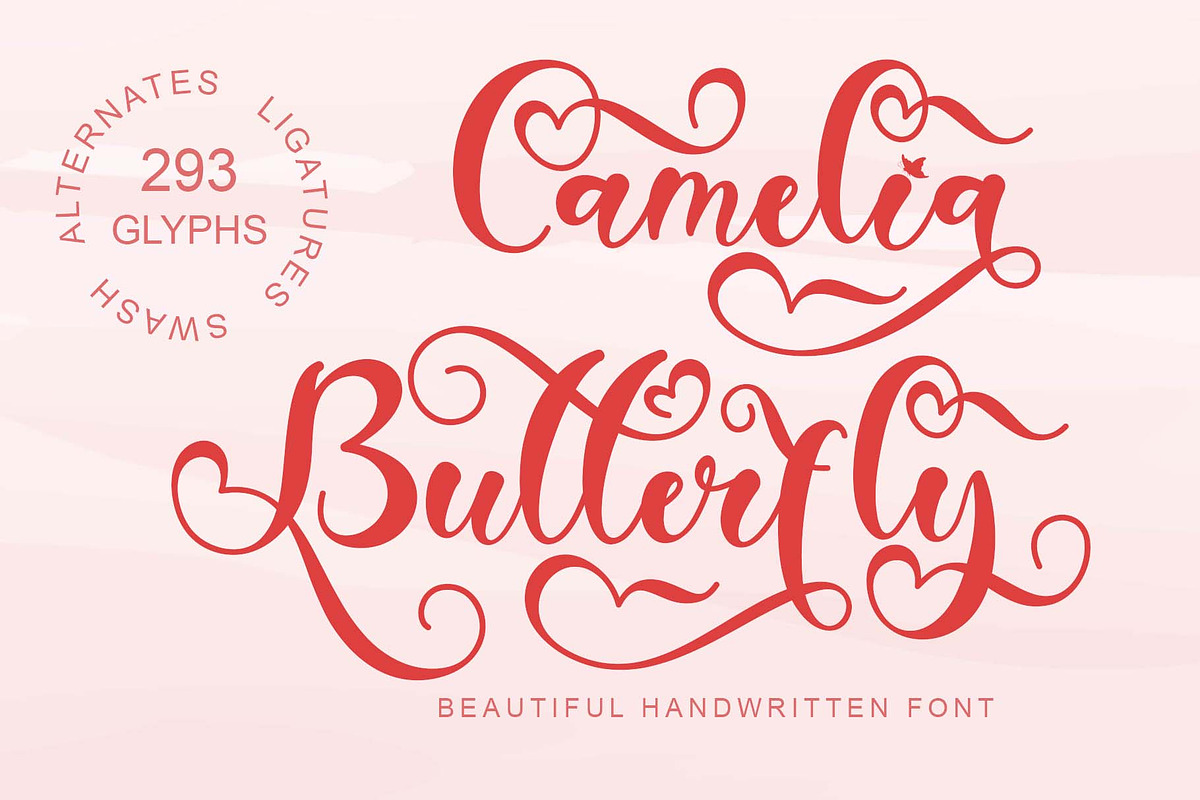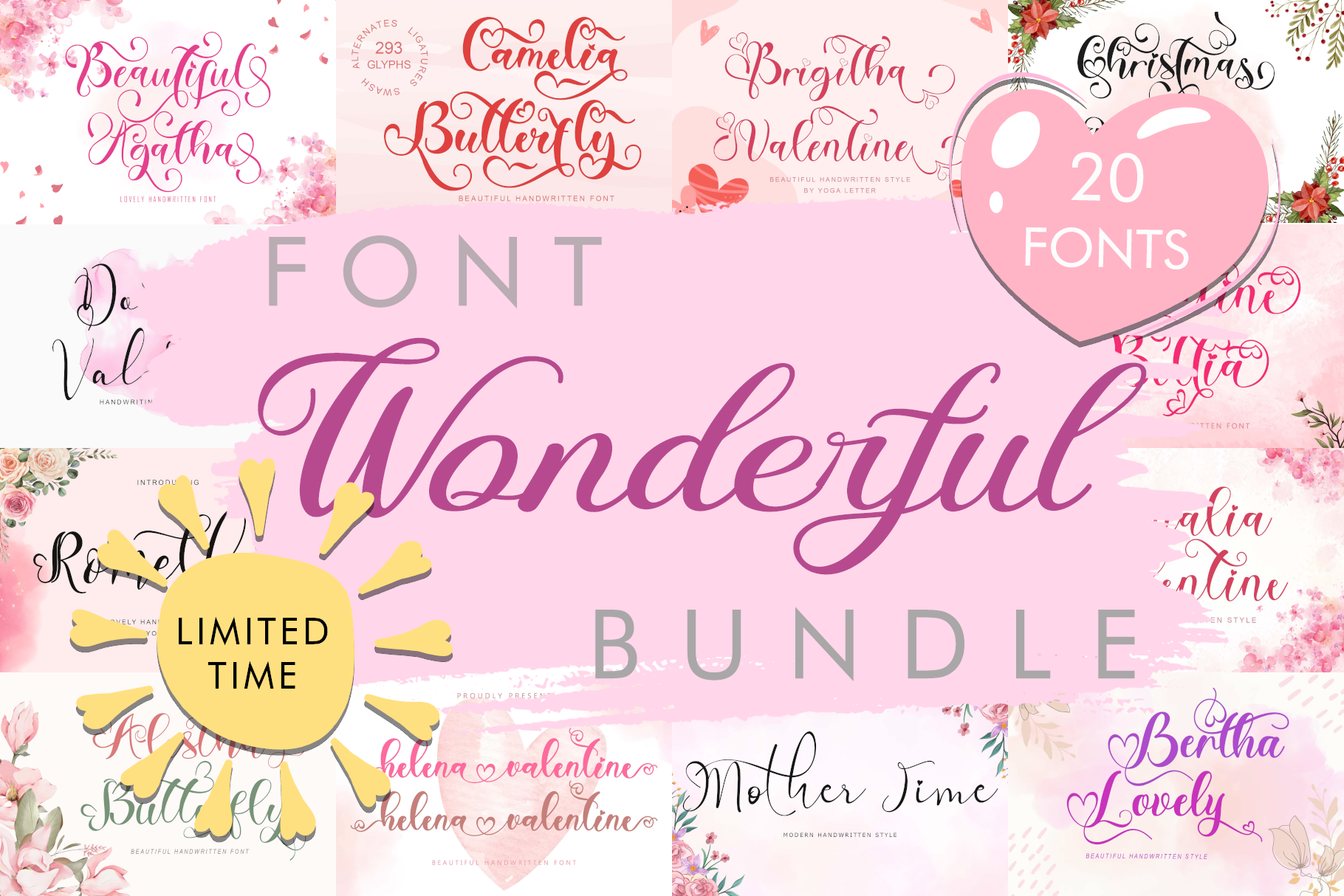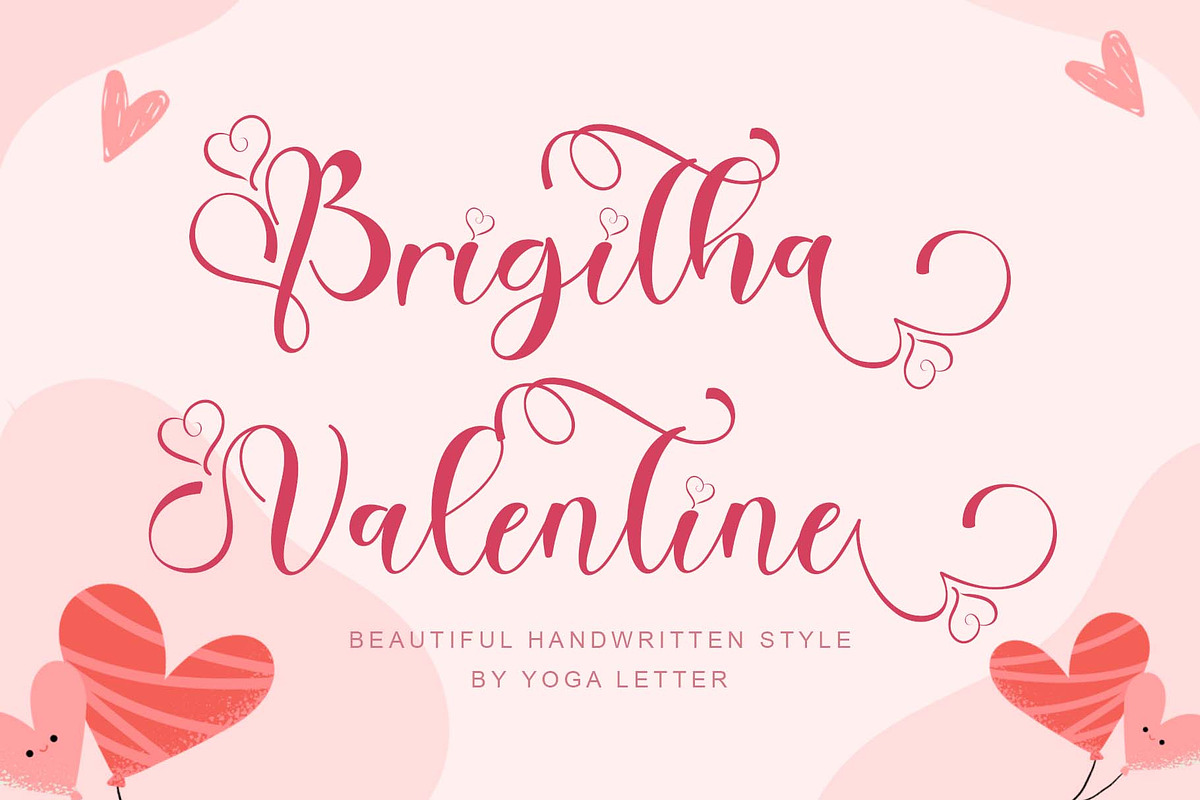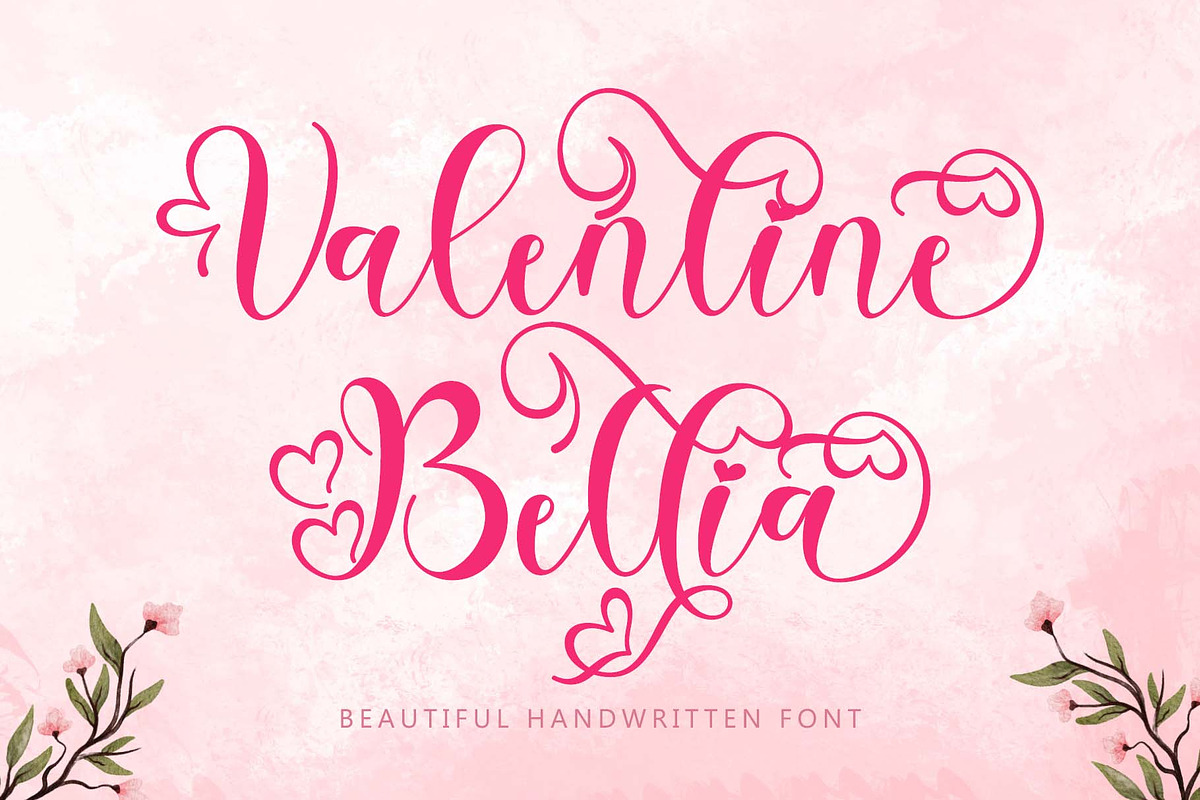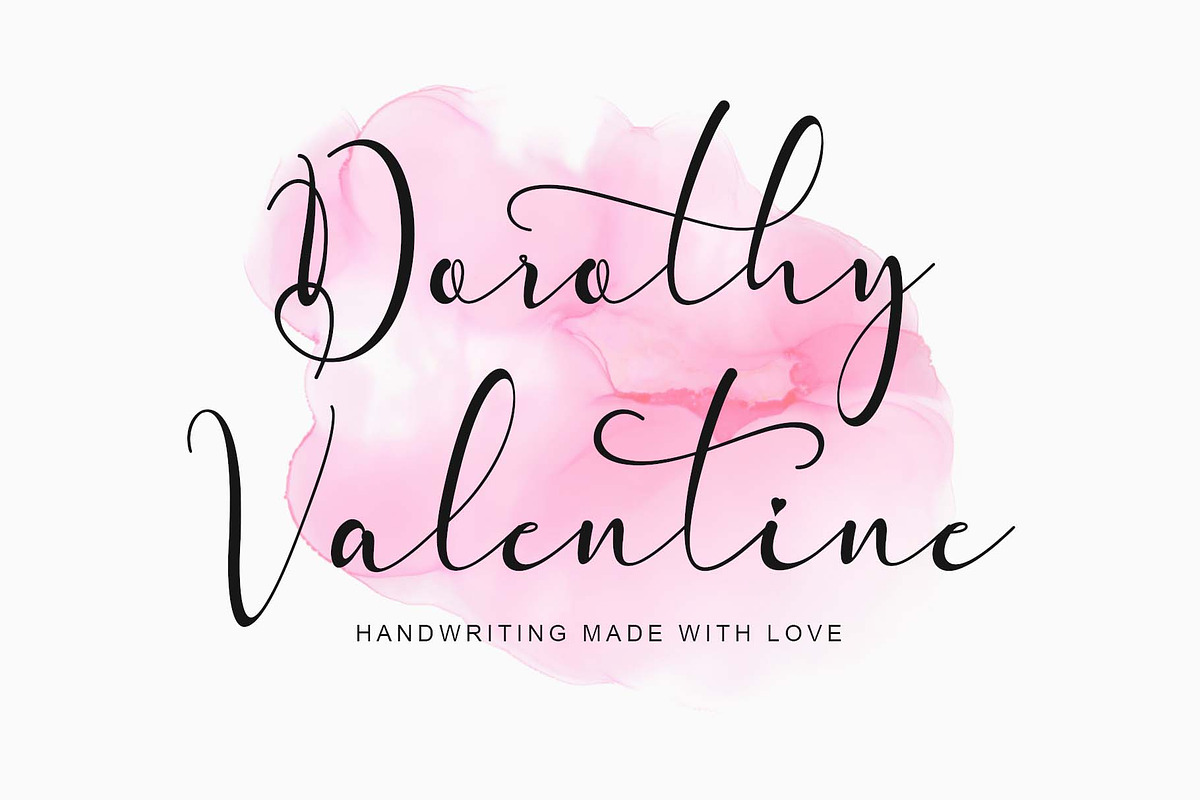
Wonderful Font Bundle
This creative collection features 20 beautiful and elegant fonts. Perfect for:
1. Wedding Invitations
2. Branding
3. Logos
4. Product Packaging
5. Social Media Designs
6. Greeting Cards
7. Craft Projects
8. Christmas Themes
A complete font collection for all your design needs:
1. Camelia Butterfly
2. Helena Valentine
3. Valentine Bellia
4. Beautiful Athellin
5. Christmas Bonitha
6. Spring Style
7. Mother Spring
8. Mother Time
9. Dorothy Spring
10. Bethy Valentine
11. Bethany Love
12. Dorothy Valentine
13. Charlotte Melody
14. Brigitha Valentine
15. Amalia Valentine
16. Angelia Valentine
17. Beautiful Agatha
18. Alestha Butterfly
19. Bertha Lovely
20. Romellin